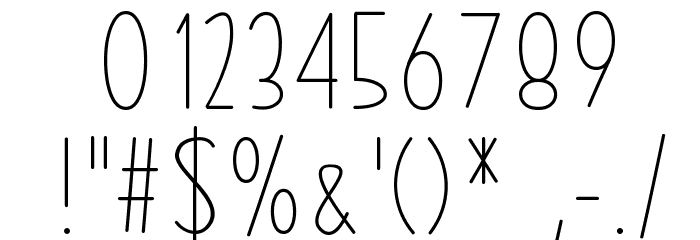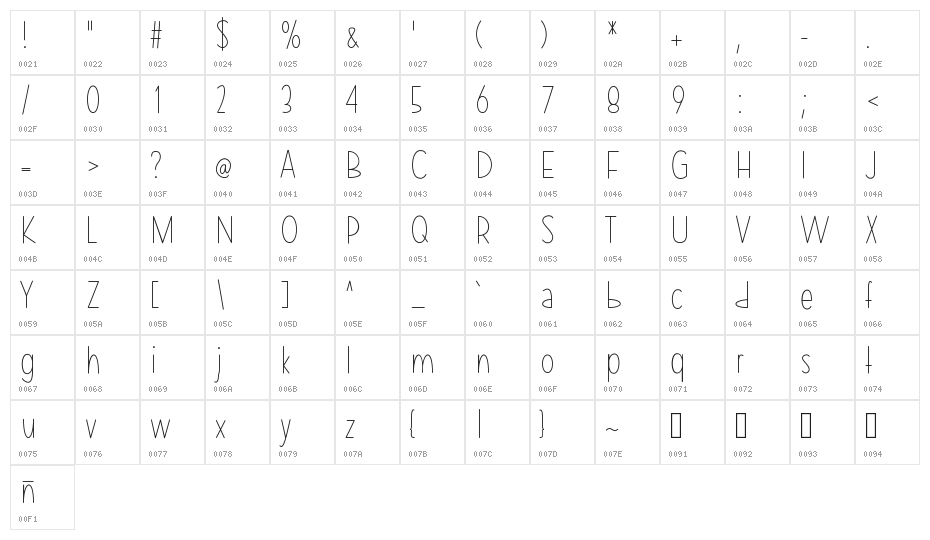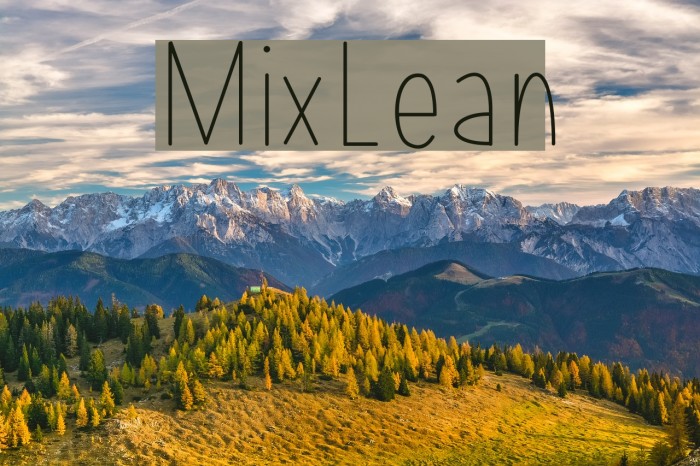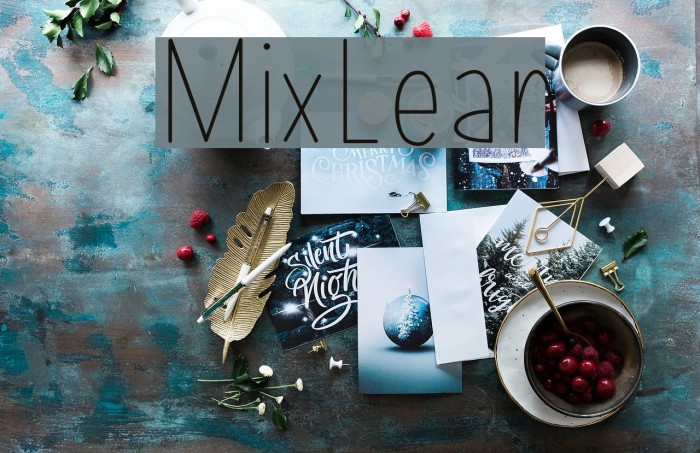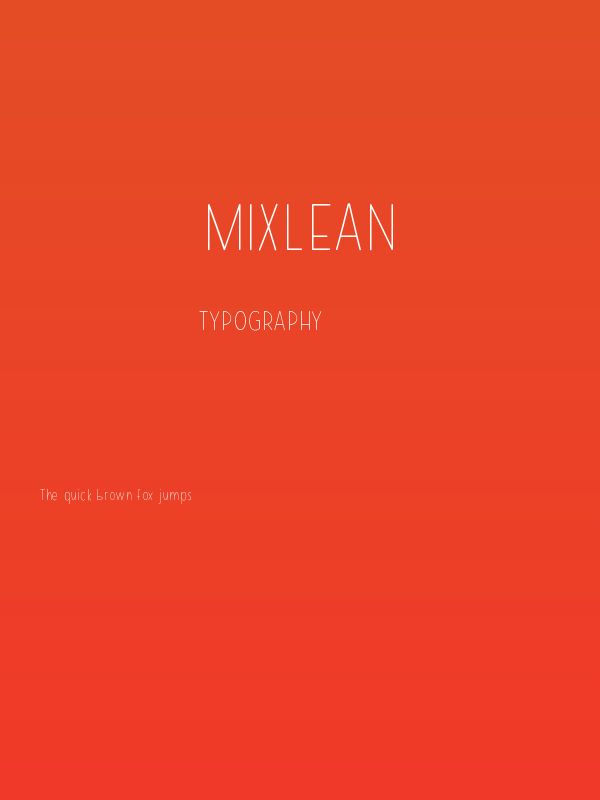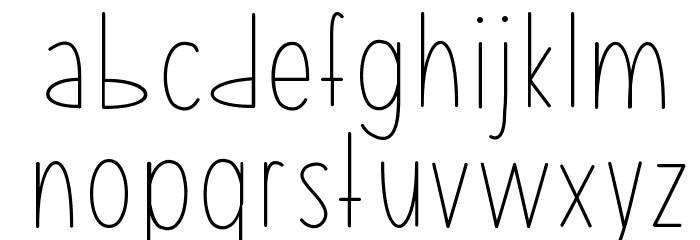
MixLean Font
MixLean Description
This font features a clean and modern design with a minimalist aesthetic. The characters are tall and narrow, giving it a sleek and elegant appearance. The strokes are consistent in width, contributing to a uniform look across all letters and numbers. The uppercase letters are slightly taller than the lowercase, maintaining a balanced proportion. The font includes a full set of numerals and a variety of special characters, making it versatile for different uses. Its simplicity and clarity make it ideal for projects that require a contemporary and professional feel.
Fonts by Mikko Sumulong
| Proposed Projects | Ideal for branding, editorial design, web design, and minimalist posters. |